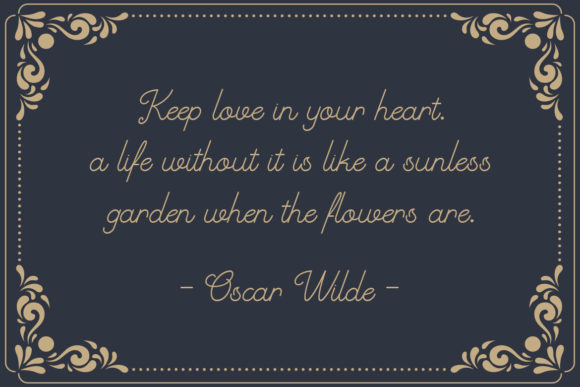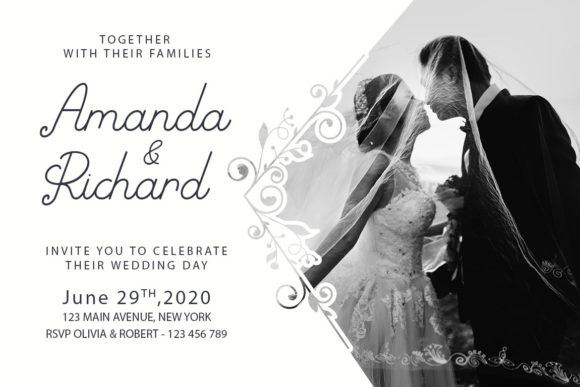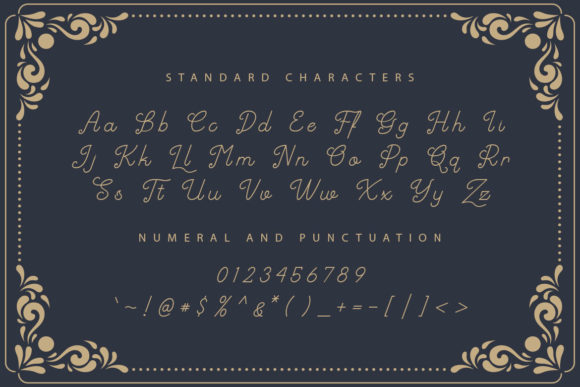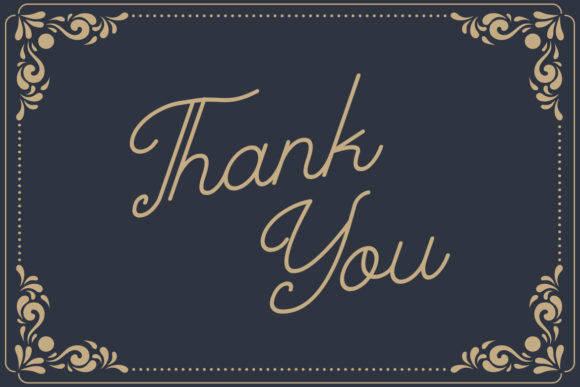
Introducing Crystal Maiden Font: Elegance Redefined
In the world of typography, few fonts manage to strike a balance between classic elegance and modern flair. Crystal Maiden Font is one such exceptional typeface that embodies sophistication while feeling refreshingly contemporary. This beautifully crafted handwritten font is designed to bring a touch of luxury and versatility to a wide array of creative projects.
The Essence of Crystal Maiden Font
Crystal Maiden Font simplifies elegance into one truly outstanding handwritten font. It maintains its classy calligraphic influences, ensuring that it feels refined and sophisticated. At the same time, it carries a modern vibe that makes it perfect for designers and crafters looking for a font that can add a fresh twist to their work.
One of the standout features of Crystal Maiden Font is its incredible versatility. Whether you’re working on letterheads, titles, or stationery, this font adapts seamlessly to various design needs. Its unique blend of traditional calligraphy and contemporary style means it can be used in a multitude of crafty ideas, making it an invaluable asset for creatives.
For designers and crafters, finding the right font can often be a challenge. Crystal Maiden Font offers a solution that is both stylish and functional. Its elegant appearance makes it ideal for projects that require a touch of sophistication, such as:
- Letterheads and Business Cards: Make a lasting impression with a font that exudes professionalism and elegance.
- Titles and Headers: Add a touch of luxury to your titles and headers, making your content stand out.
- Stationery and Invitations: Create beautifully designed stationery and invitations that are sure to impress.
Why Choose Crystal Maiden Font?
There are several reasons why Crystal Maiden Font should be your go-to choice for your typography needs:
- Elegant and Modern: It combines the best of both worlds, offering a look that is both classically elegant and modernly fresh.
- Highly Versatile: Suitable for a wide range of projects, from formal documents to creative crafts.
- Easy to Read: Despite its elegant appearance, Crystal Maiden Font remains highly legible, making it perfect for both headings and body text.
- Unique Style: Stand out from the crowd with a font that has a distinct and unique character.
Tips for Using Crystal Maiden Font
To get the most out of Crystal Maiden Font, consider the following tips:
- Mix and Match: Combine Crystal Maiden Font with other fonts to create interesting contrasts and hierarchies in your designs.
- Play with Sizes: Experiment with different font sizes to emphasize certain elements and create visual interest.
- Color Matters: While the font itself is elegant, choosing the right color can further enhance its beauty and suitability for your project.
Crystal Maiden Font is more than just a typeface; it’s a design statement. With its perfect blend of elegance and modernity, it offers endless possibilities for designers and crafters. Whether you’re looking to add a touch of sophistication to your business documents or create stunning craft projects, Crystal Maiden Font is an excellent choice. Its versatility, beauty, and readability make it a valuable addition to any designer’s toolkit.
Embrace the elegance and versatility of Crystal Maiden Font in your next project. Let it be the key to unlocking a world of creative possibilities that are as beautiful as they are functional.